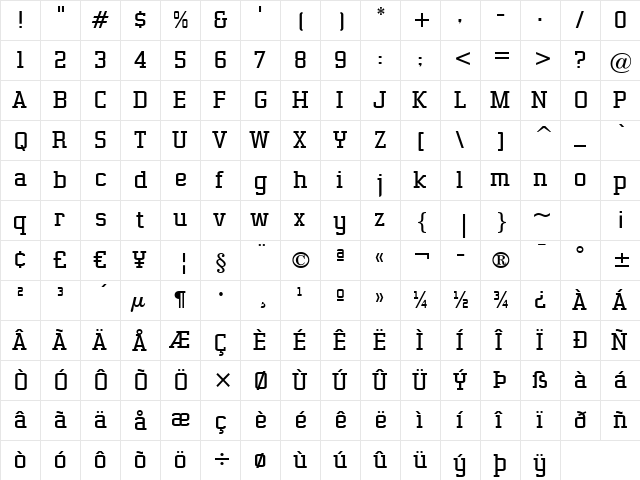
Gasoline Serif BTN Lt Regular
Design Context for Gasoline Serif BTN Lt Typeface
Gasoline Serif BTN Lt brings classic typographic sensibility to the table — its serifs and measured letterforms reflect centuries of print heritage. Its slender proportions lend an understated elegance to any composition.